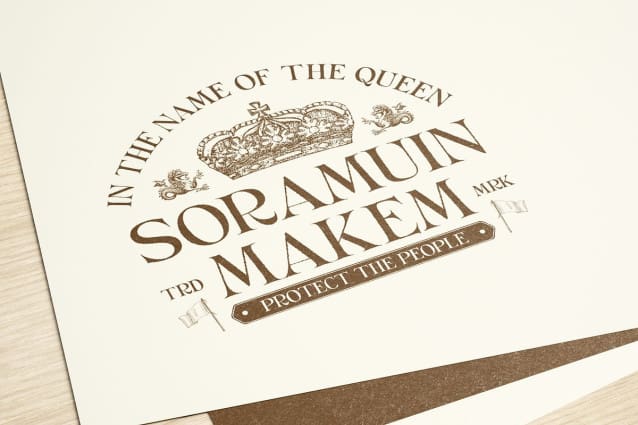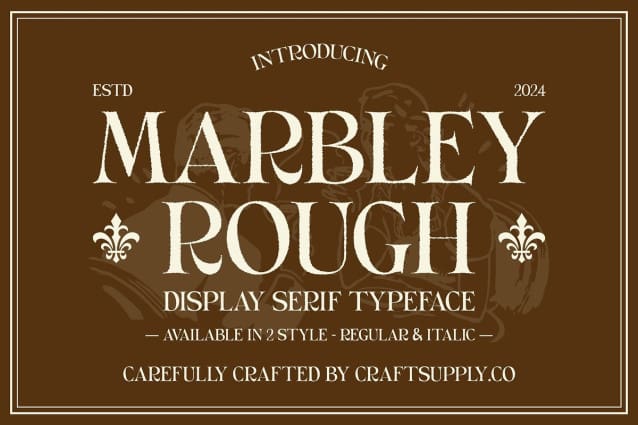
Marbley Rough Font
Marbley Rough Font is a modern serif font that merges classic precision with an artistic rough texture. The font’s smooth, sharp serifs convey professionalism and luxury, creating a refined and sophisticated appearance. The classic serif shape maintains an elegant feel, ideal for conveying high standards and premium quality.
Textured Depth with Unique Character The rough texture of Marbley Rough introduces a distinctive, artistic dimension to the font. This rough effect adds visual depth and character, blending seamlessly with the font’s elegant design. The combination of sleek serifs and rugged texture creates a striking balance between formality and creative flair, enhancing the font’s overall visual impact.
Perfect for Premium Branding and Creative Projects Marbley Rough is designed for applications that demand both elegance and boldness. Its unique blend of classic and artistic elements makes it ideal for premium branding, editorial design, and creative projects requiring a sophisticated yet distinctive look. Whether you’re crafting high-end branding materials or dynamic editorial layouts, Marbley Rough delivers an impressive combination of luxury and creativity, ensuring your designs stand out with both style and substance.